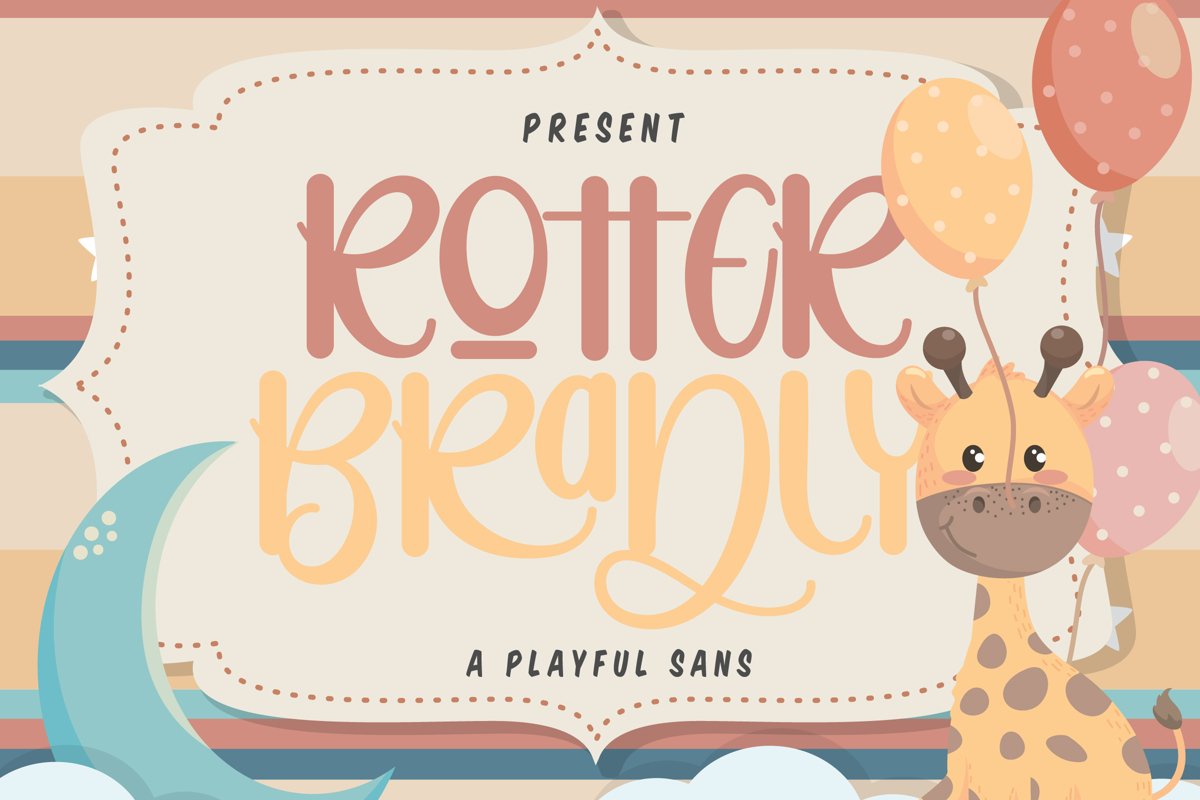
Rotter Bradly | A Playful Sans
Rotter Bradly
**Rotter Bradly | A Playful Sans** with a calligraphy style, So beautiful on invitation like greeting cards, branding materials, business cards, quotes, posters, and more!
* Tons of glyphs
* Alternates and Ligatures
* Punctional
* **PUA Encoded Characters** - Fully accessible without additional design software.
* Fonts include **Multilingual Support**